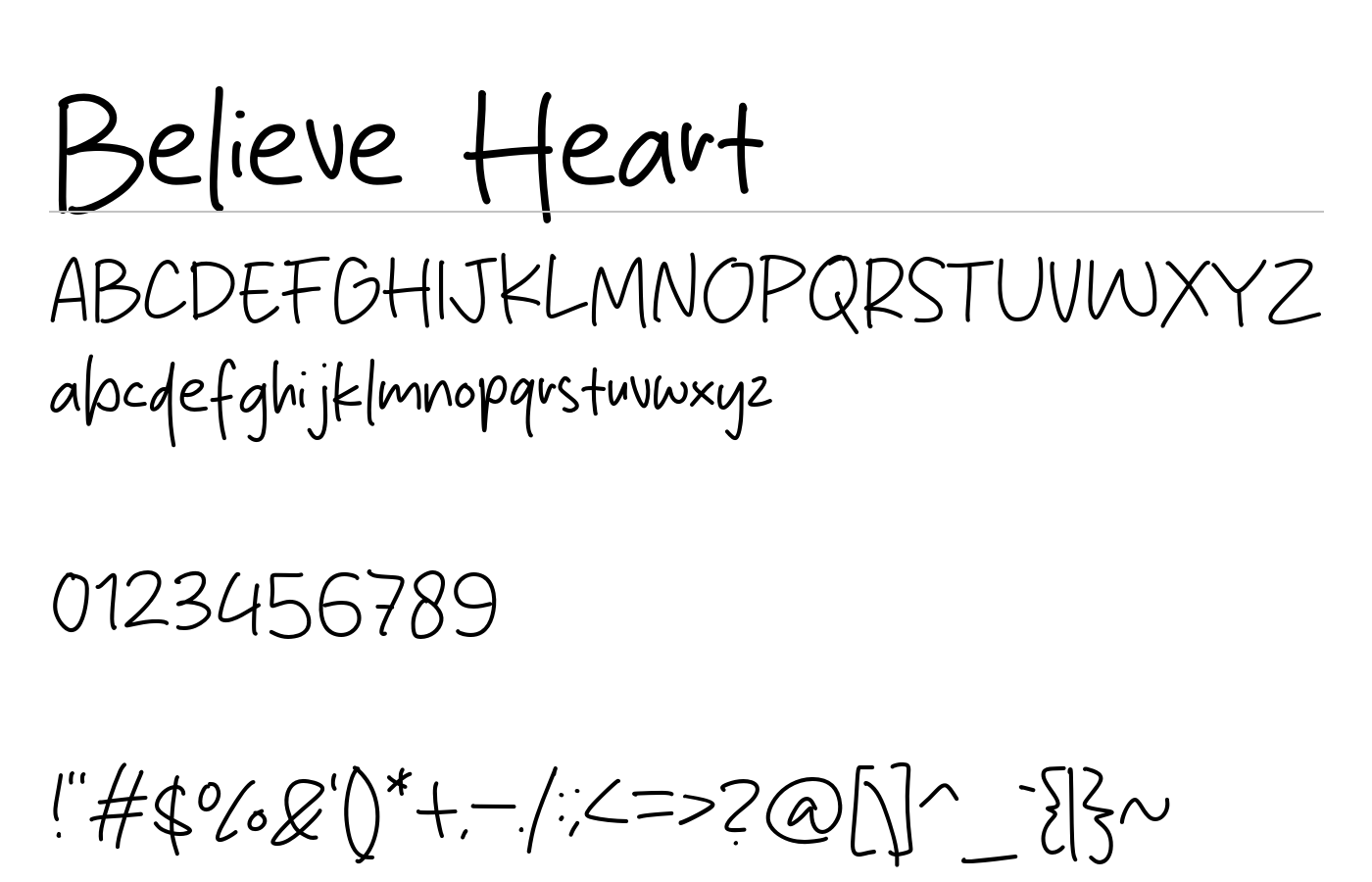
Believe Heart is a light, playful handwritten font with a casual and friendly feel. Its tall, narrow characters and smooth, rounded strokes make it ideal for informal designs, such as personal branding, kids' products, or creative projects that want to convey warmth and approachability. This font works well in logos, social media graphics, and headlines where a natural, inviting touch is desired.
Believe Heart Font
About Believe Heart Font